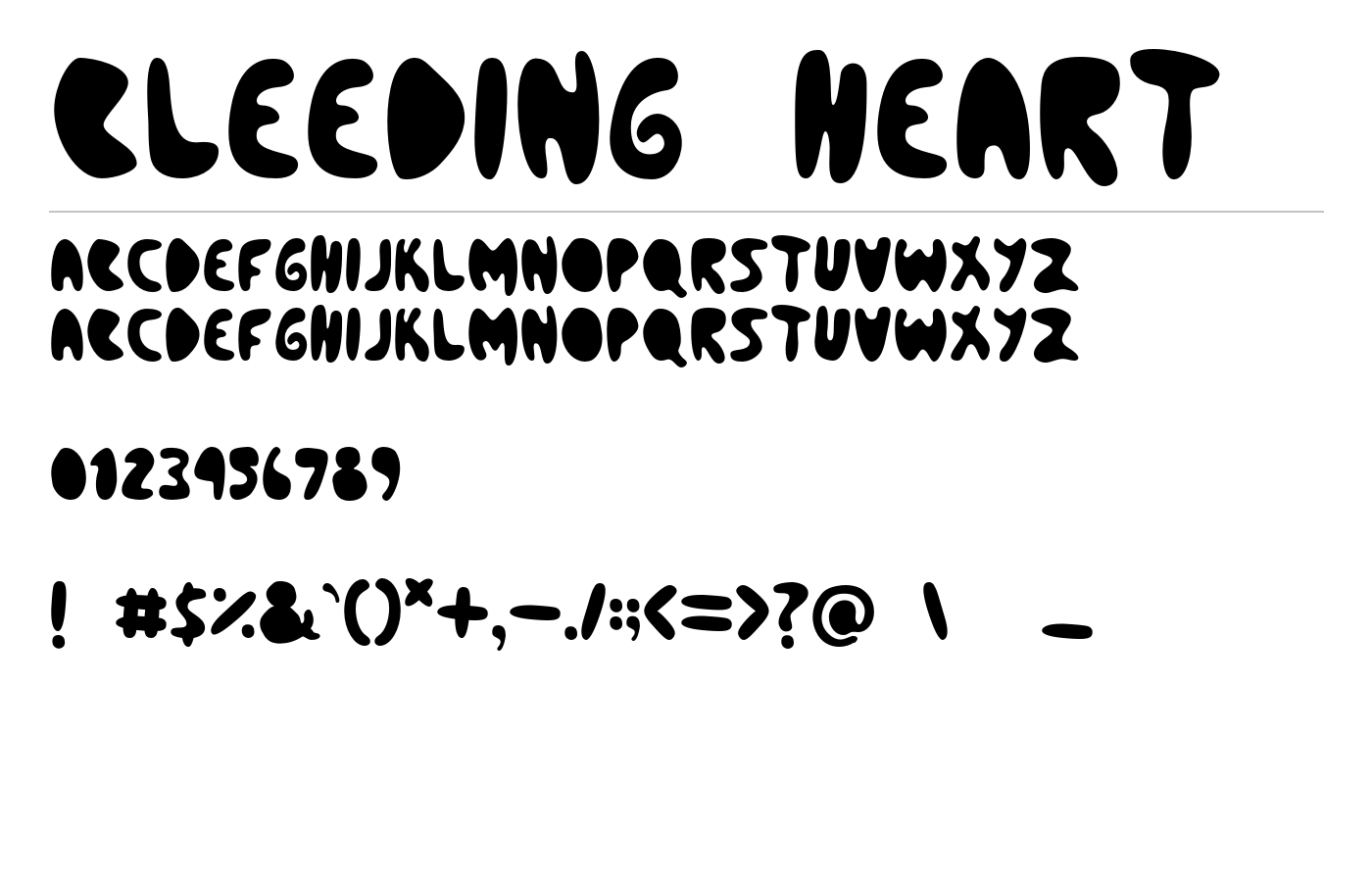
Bleeding Heart is a playful, bold display font with a chunky, organic shape that gives it a handwritten, quirky feel. Its wide, irregular letterforms with soft edges and low contrast create a casual and friendly personality, perfect for fun, creative projects like posters, logos, and children’s materials. This font works best where a unique, eye-catching style is needed to convey warmth and approachability.
Bleeding Heart Font
About Bleeding Heart Font